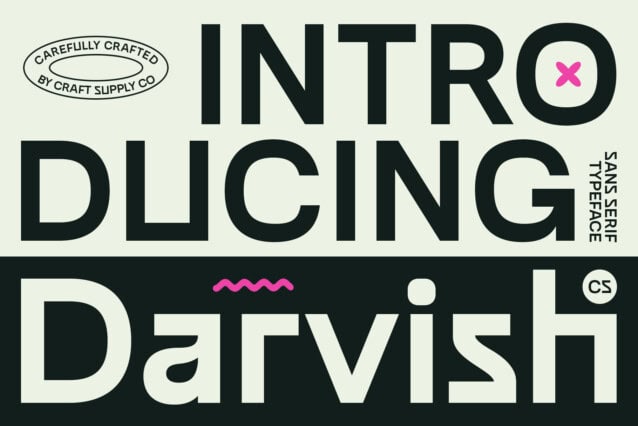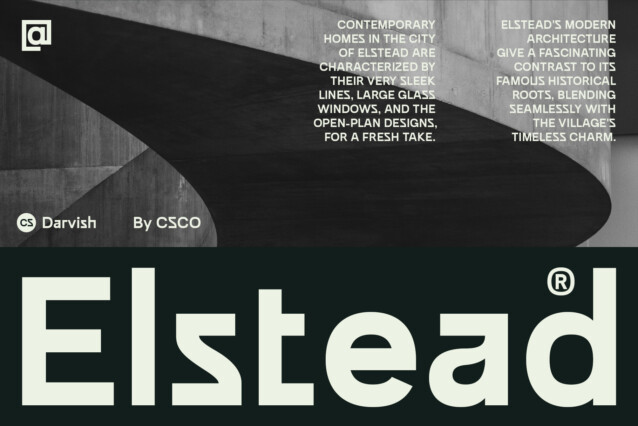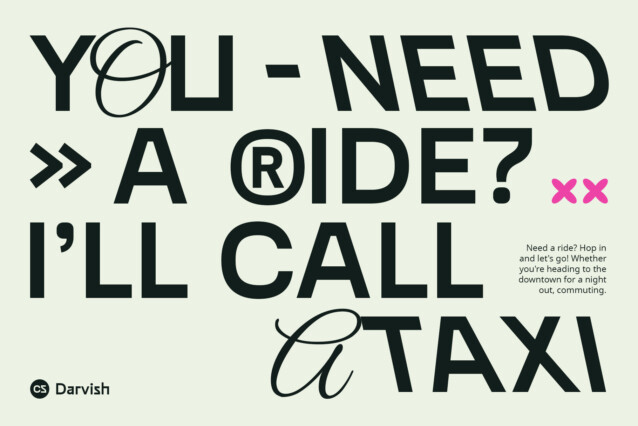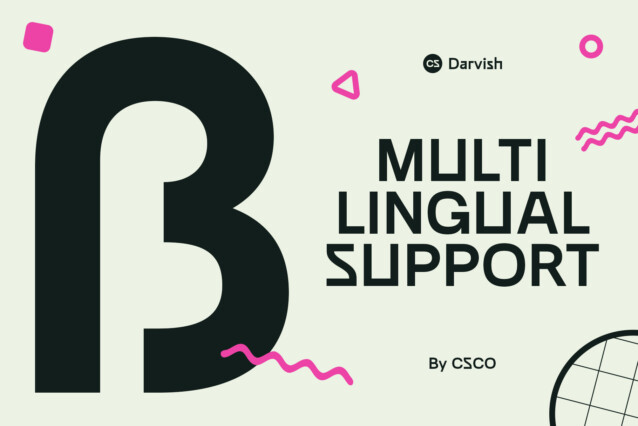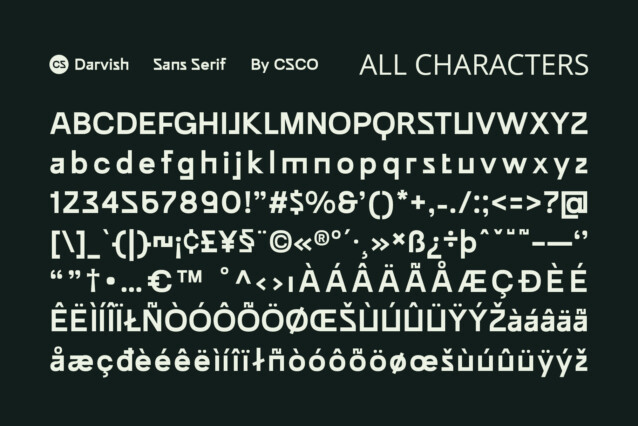
CS Darvish Font
CS Darvish Font is a modern sans serif font designed for corporate environments, featuring a clean, tidy, and easy-to-read design. Engineered for optimal readability across various media, this font prioritizes elegant simplicity, making it ideal for official documents, presentations, and corporate brand identities.
Emphasis on Readability
With consistent letter proportions and a minimalistic appearance, CS Darvish ensures clear and legible text in all applications. Its streamlined design conveys a modern and professional impression, enhancing the visual appeal of corporate communications.